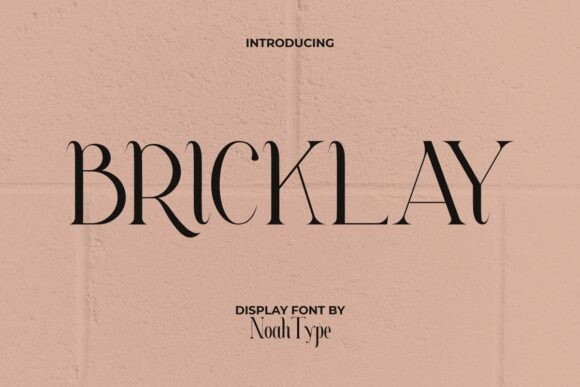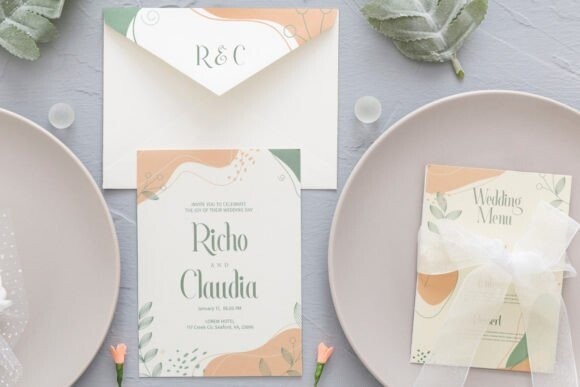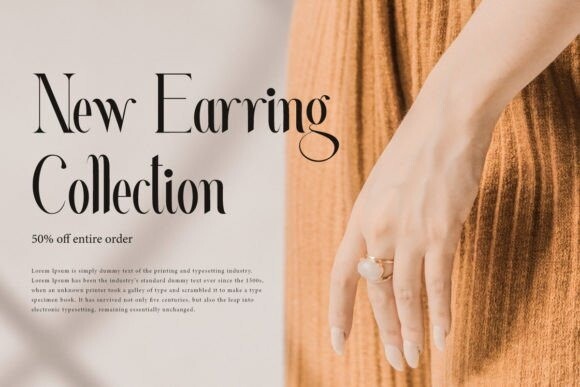
Bricklay Font
Bricklay Font is a sleek and modern serif font that exudes sophistication and professionalism. Its clean lines and balanced proportions make it perfect for various design projects, from corporate branding to editorial layouts. With its timeless elegance, Bricklay adds a touch of refinement to any composition. Elevate your designs with the solid foundation of Bricklay.